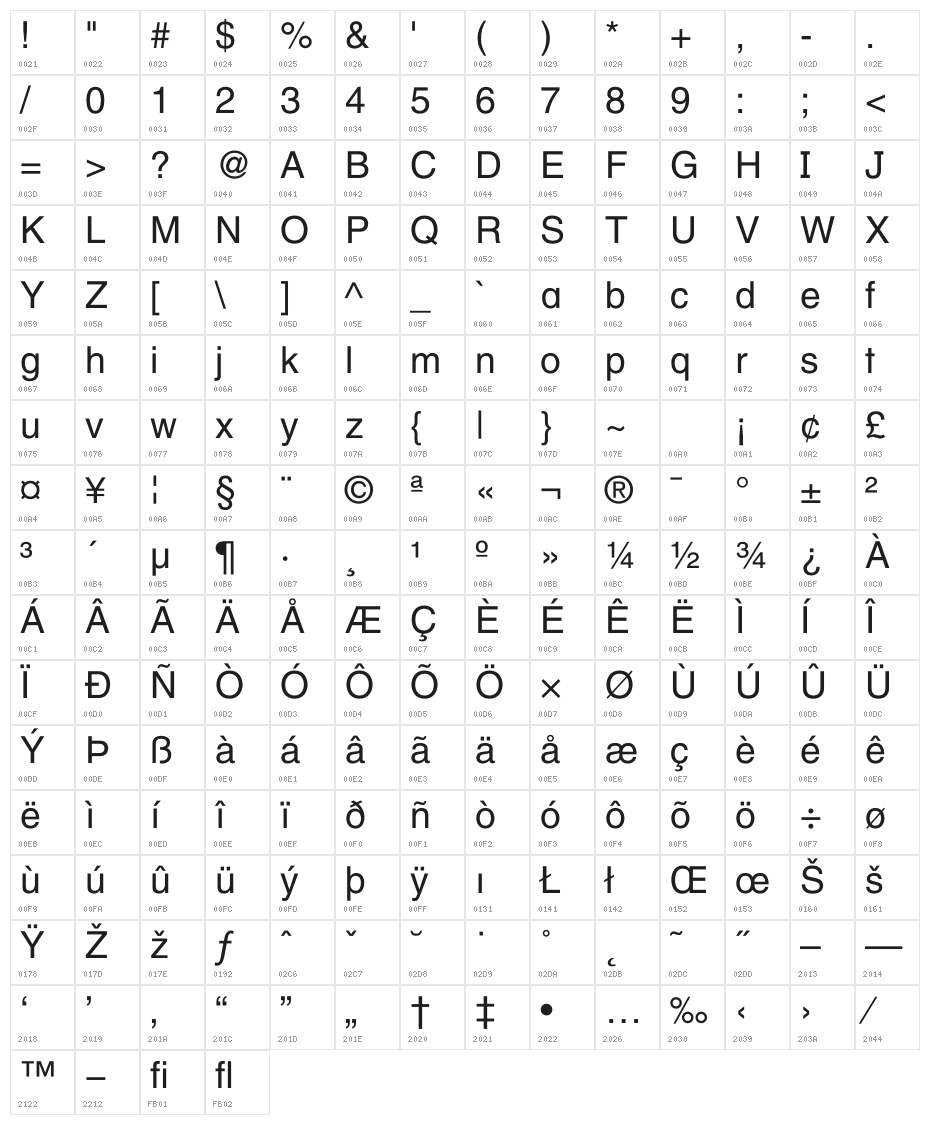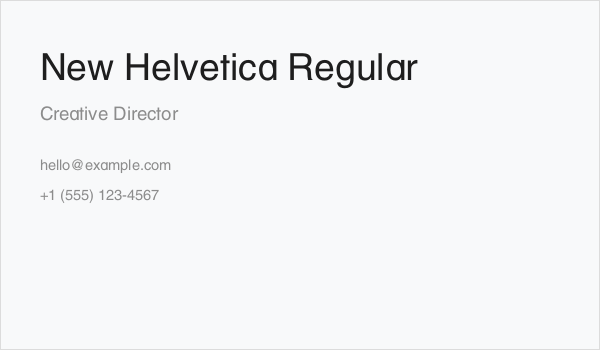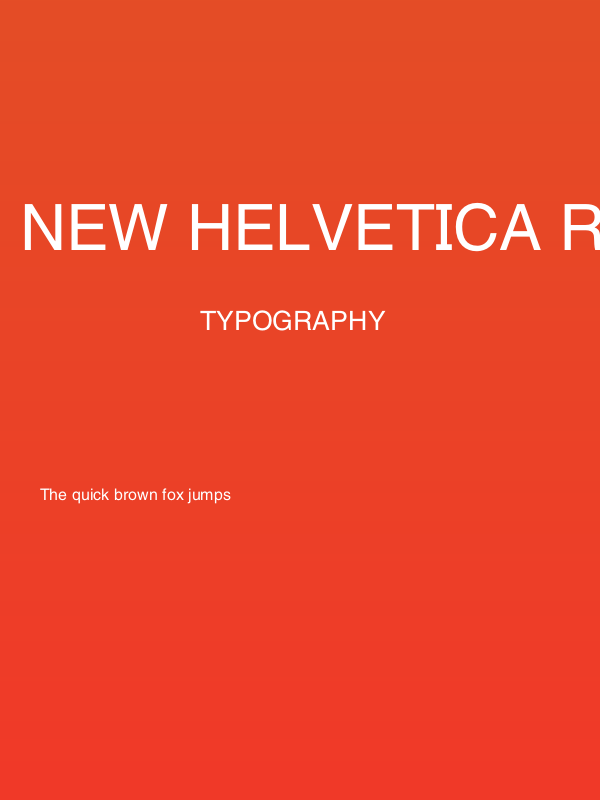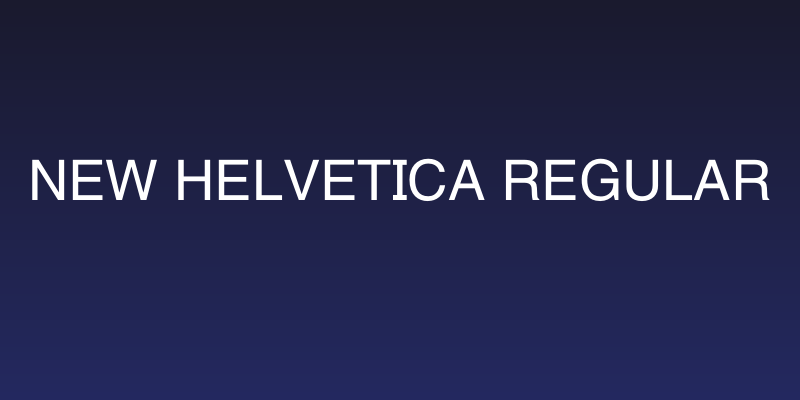
New Helvetica Regular Font
New Helvetica Regular Description
This font is a modern sans-serif typeface known for its clean and minimalist design. It features uniform stroke widths and a balanced, neutral appearance, making it highly legible across various sizes and contexts. The characters are well-proportioned, with a focus on clarity and simplicity. The uppercase letters are bold and assertive, while the lowercase letters maintain a consistent and harmonious flow. The numerals are clear and easily distinguishable, and the special characters are straightforward and functional. This font is versatile, suitable for both digital and print media, and is often used in professional and corporate settings due to its timeless and adaptable nature.
| Proposed Projects | Ideal for corporate branding, web design, editorial layouts, and signage. |